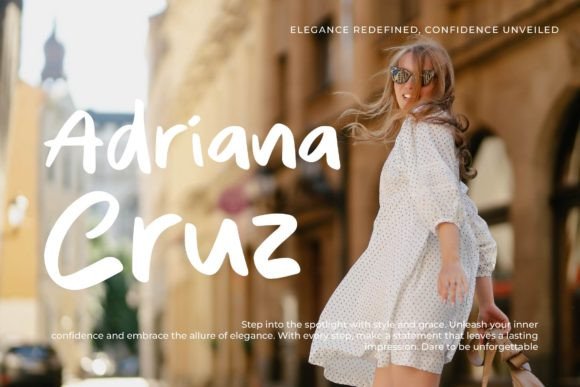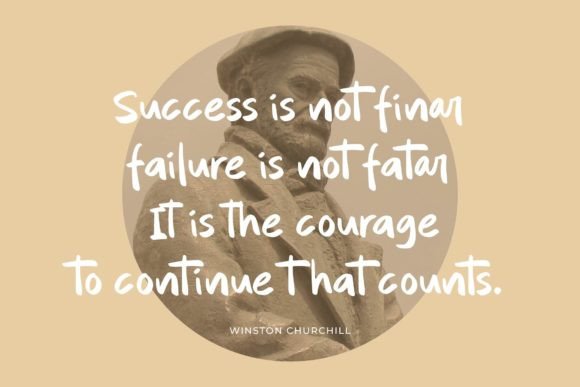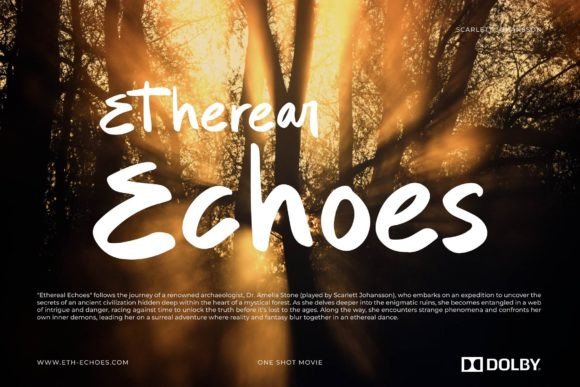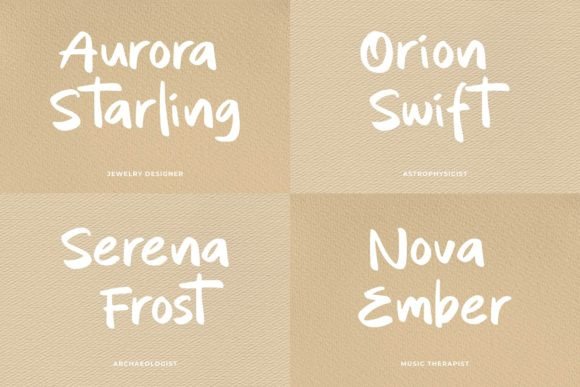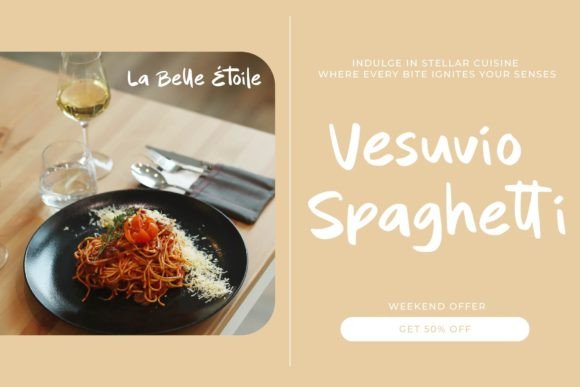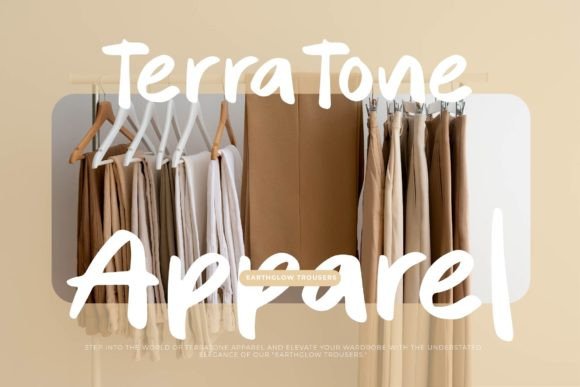
Introduction to Quintero Font
Quintero is a handwritten script font with a natural and stylish look.
It’s perfect for creating personal projects like greeting cards, logos, invitations, or anything that needs a personal, handwritten touch The letters flow smoothly, giving your design a friendly and elegant feel.
Key Features of Quintero Font